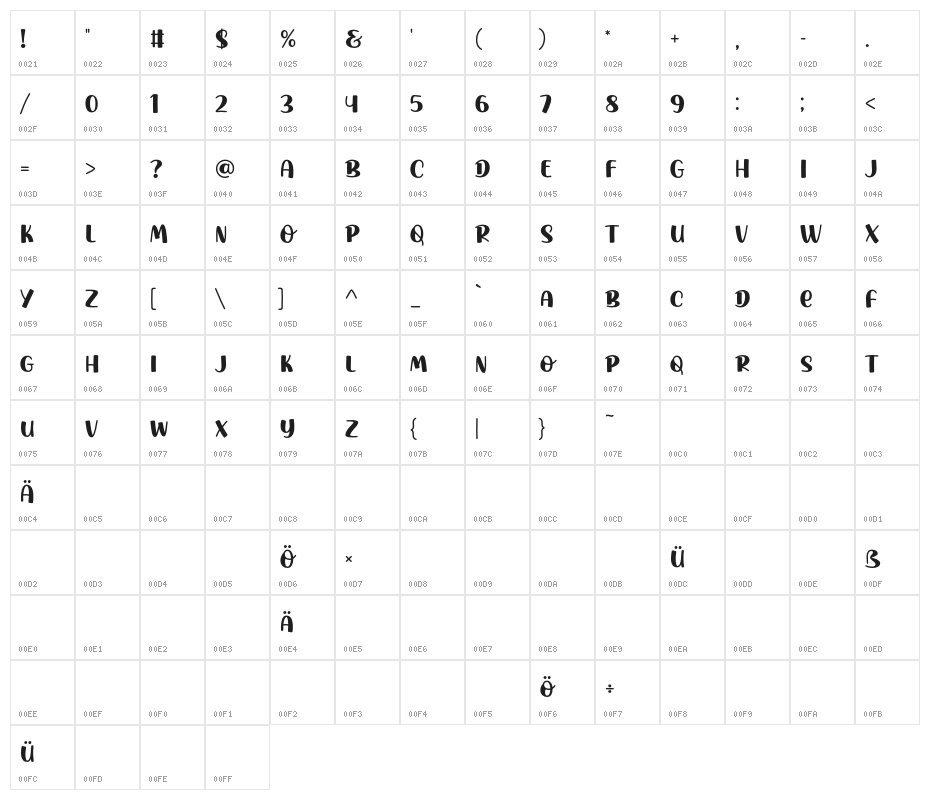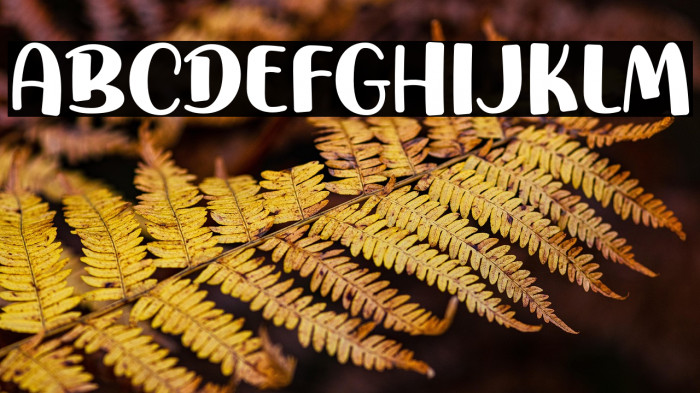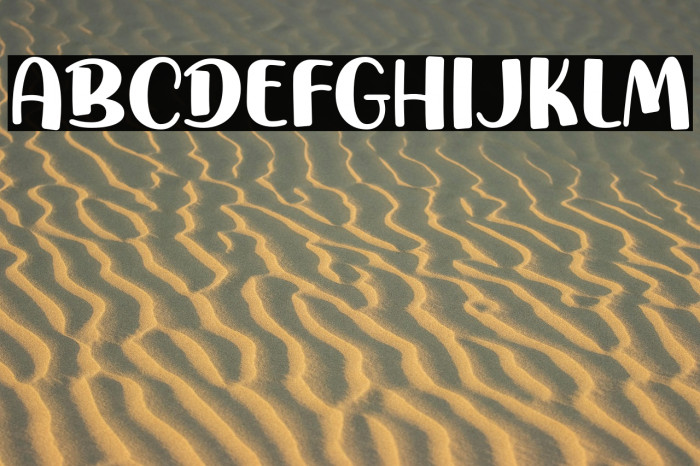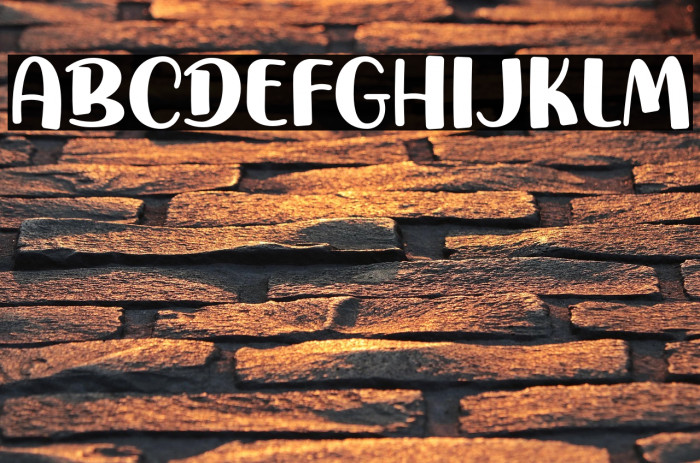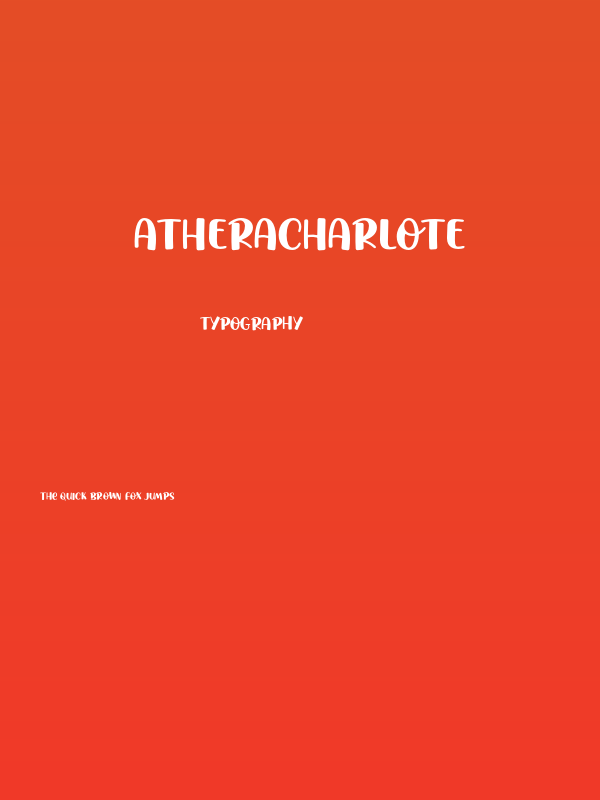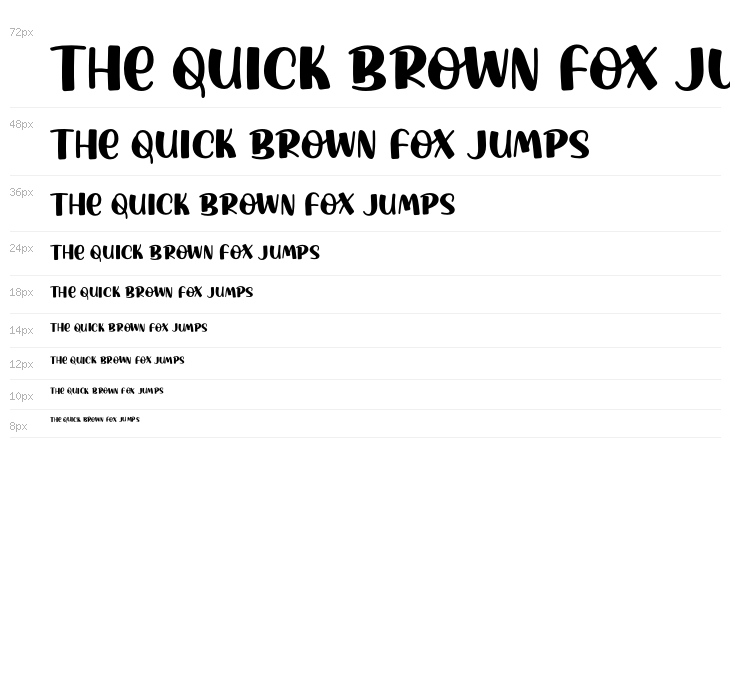
AtheraCharlote Font
AtheraCharlote Description
This font features a playful and bold script style, characterized by its smooth, flowing curves and thick strokes. The letters are slightly slanted, giving a sense of motion and energy. The uppercase and lowercase letters maintain a consistent style, with the uppercase letters being slightly more pronounced. The numbers and special characters are designed to match the overall aesthetic, ensuring a cohesive look. This font is ideal for projects that require a fun and lively touch, such as invitations, posters, and branding materials.
| Proposed Projects | Ideal for invitations, posters, branding, and any project needing a lively touch. |